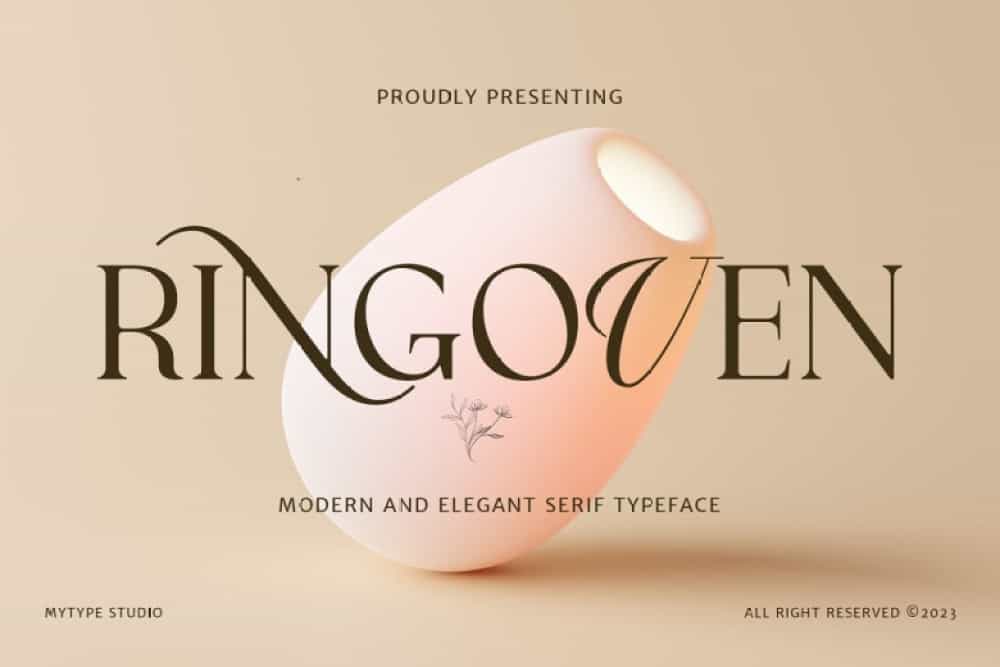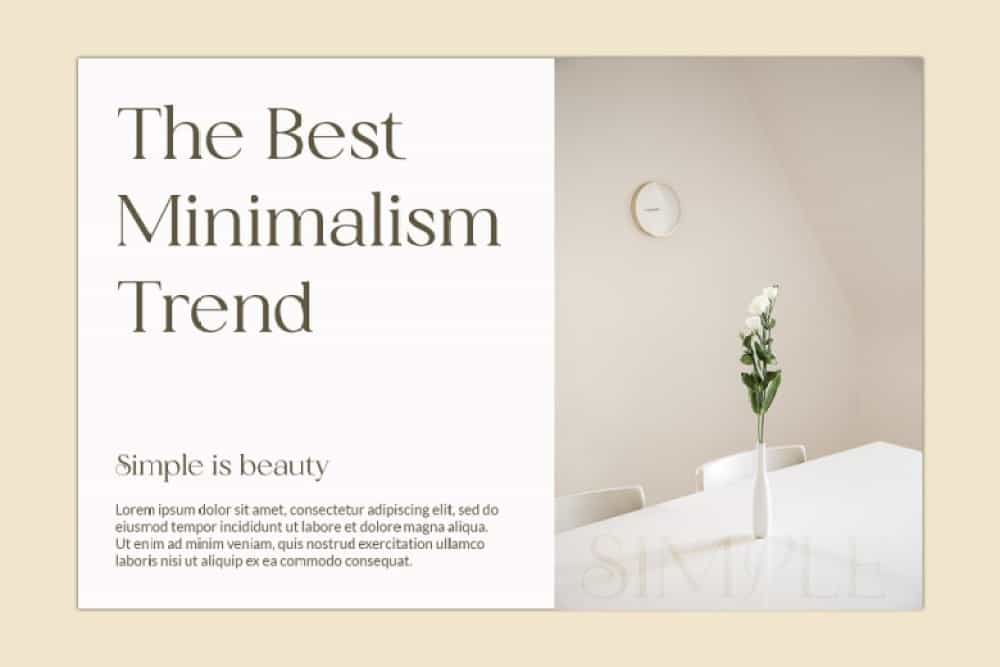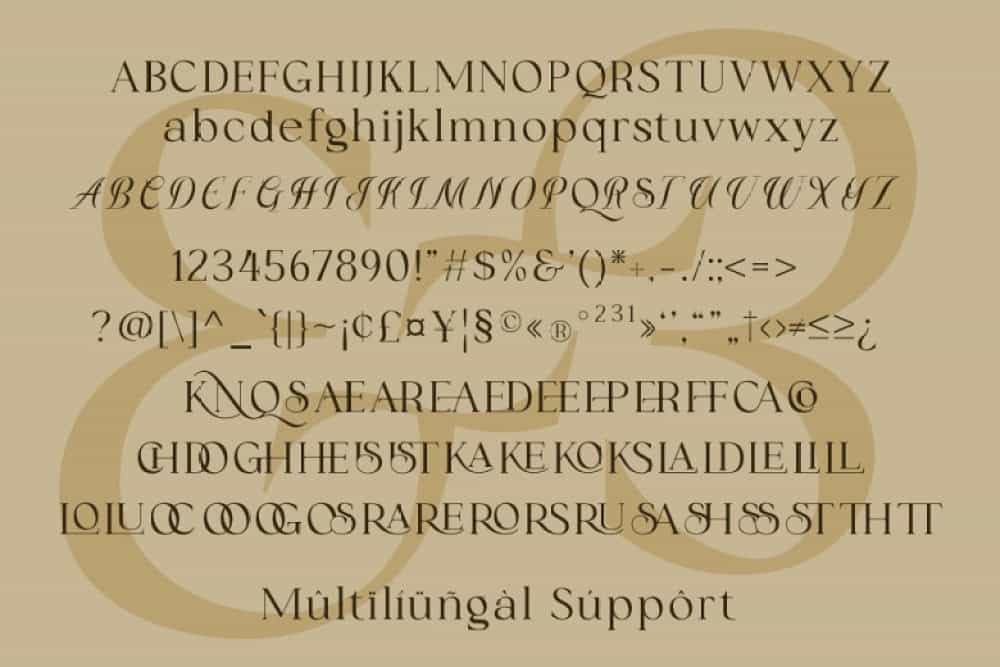
Ringoven is a modern serif font with natural movement give it a elegant, classy and beauty for your project. Ringoven is particularly suitable for branding projects and logos, wedding designs, social media posts, advertisements, product packaging and designs, labels, photography and watermarks, invitations, stationery and any project which has to do with the handwriting style.